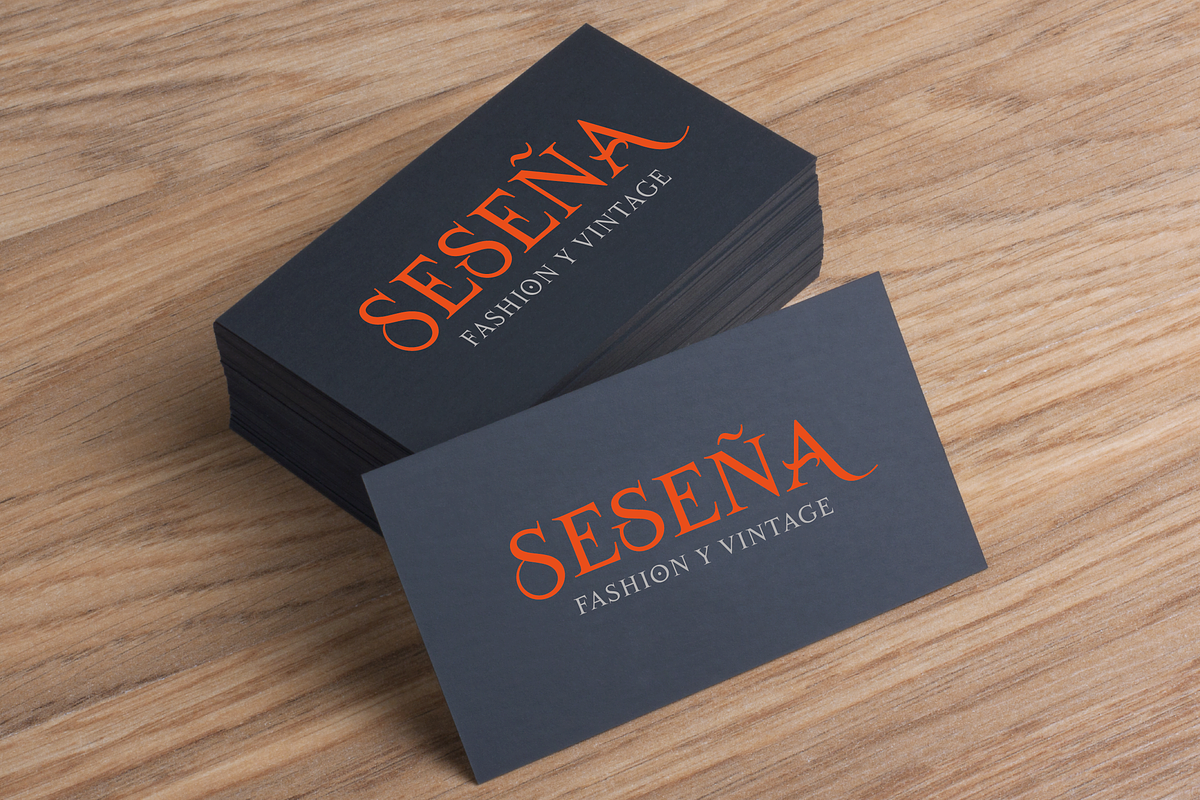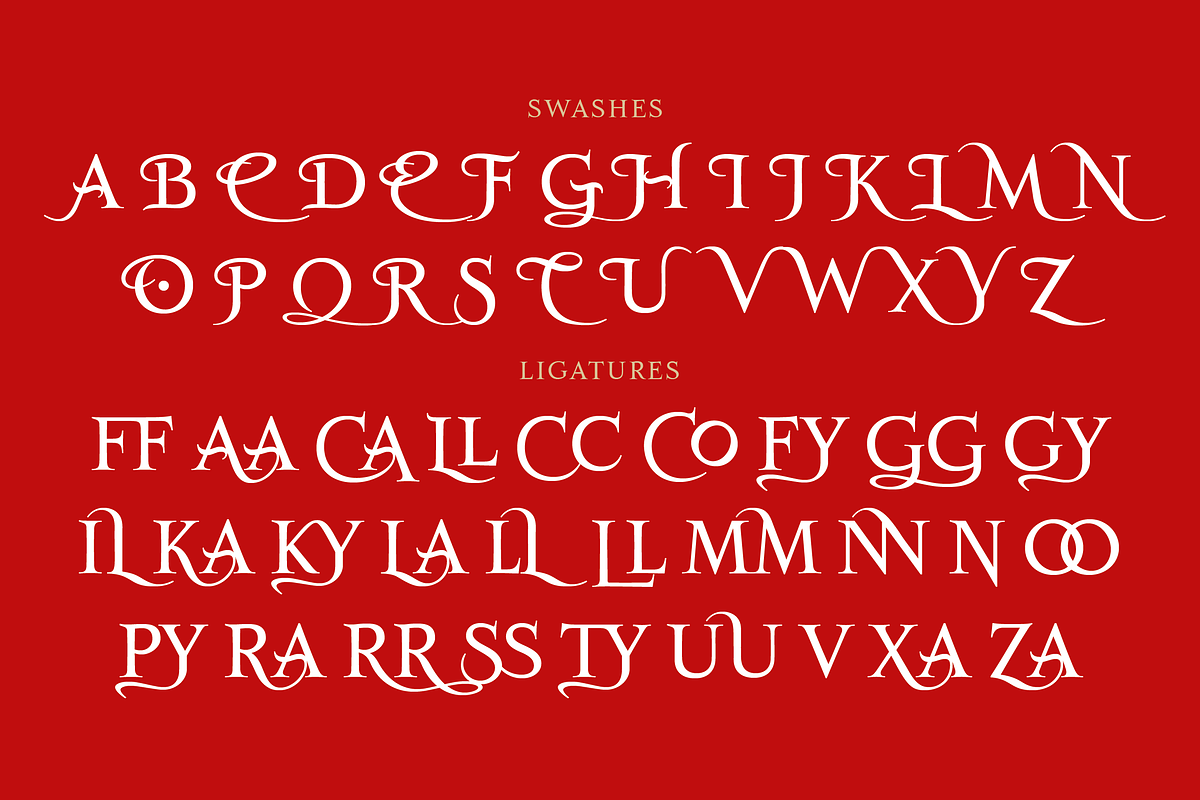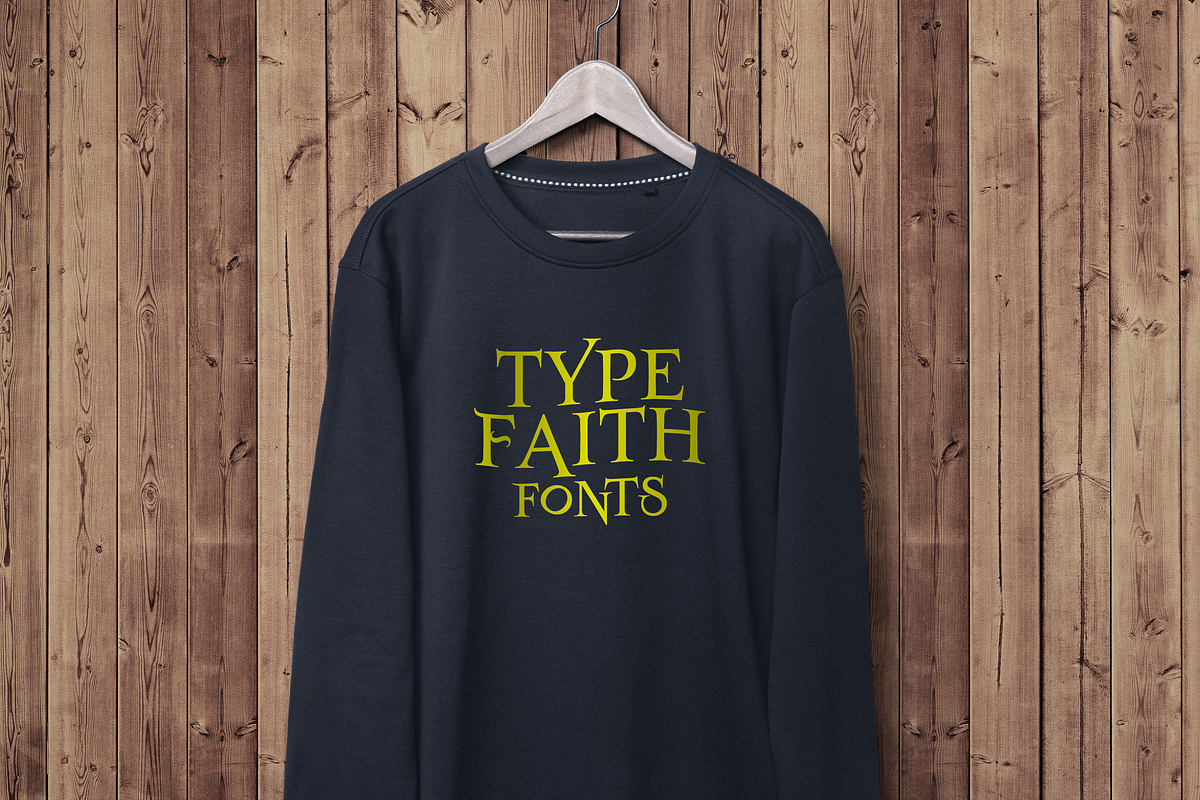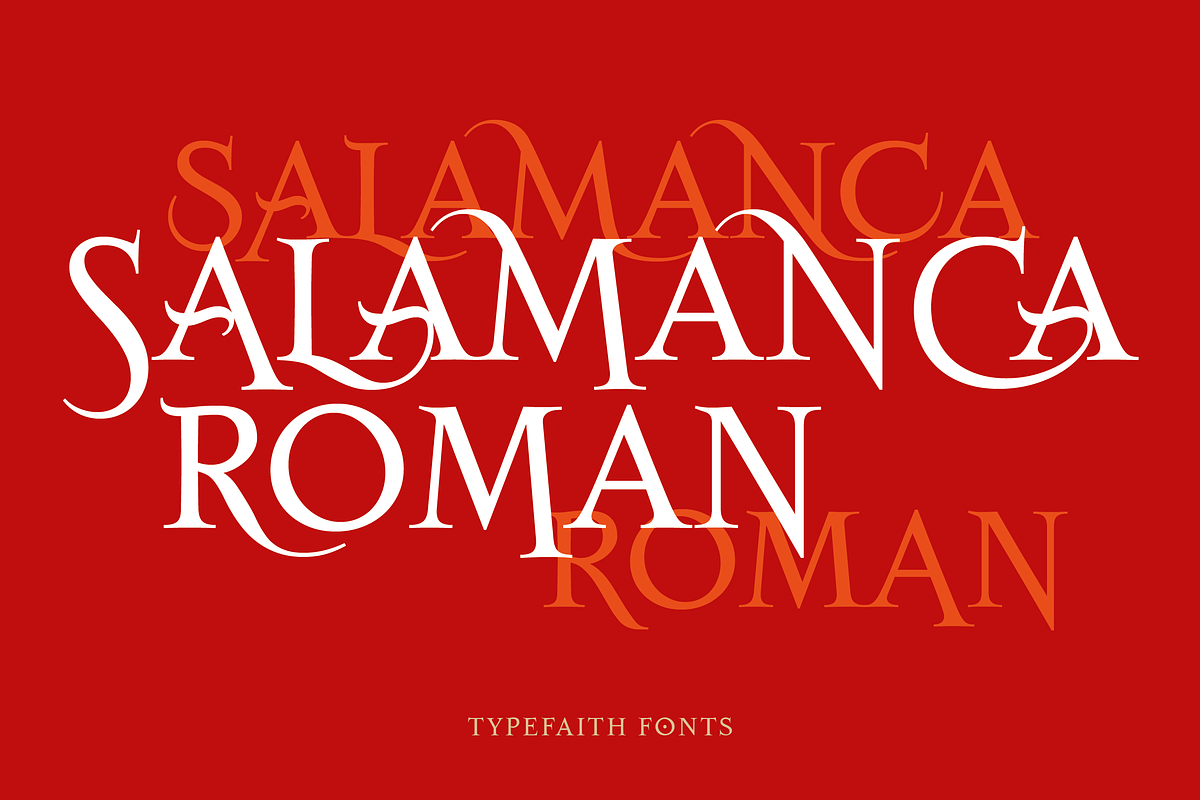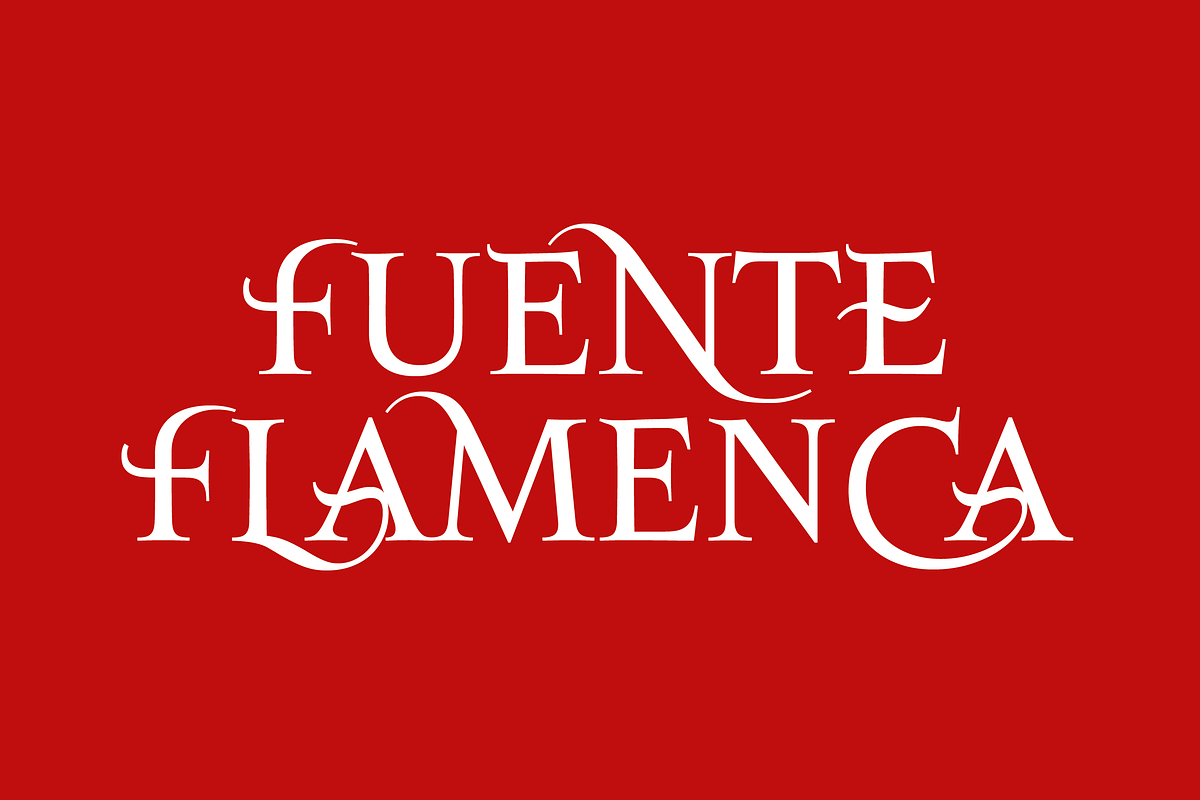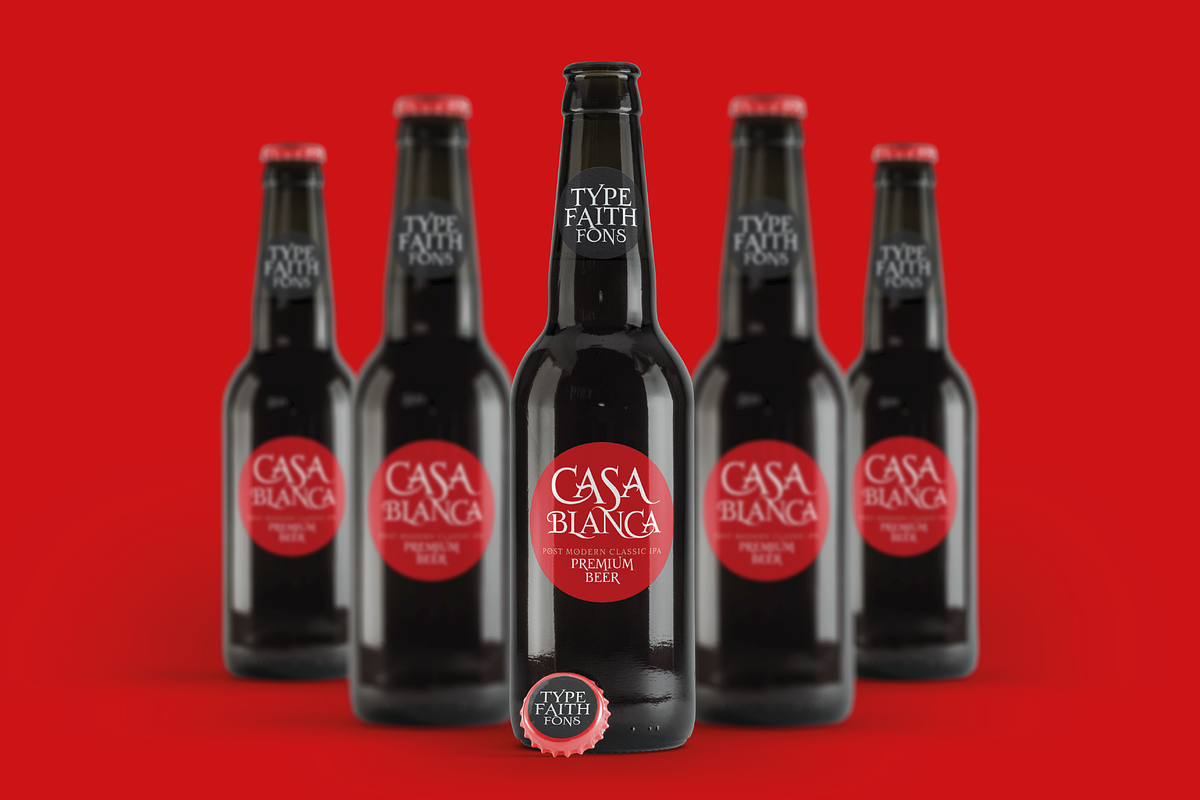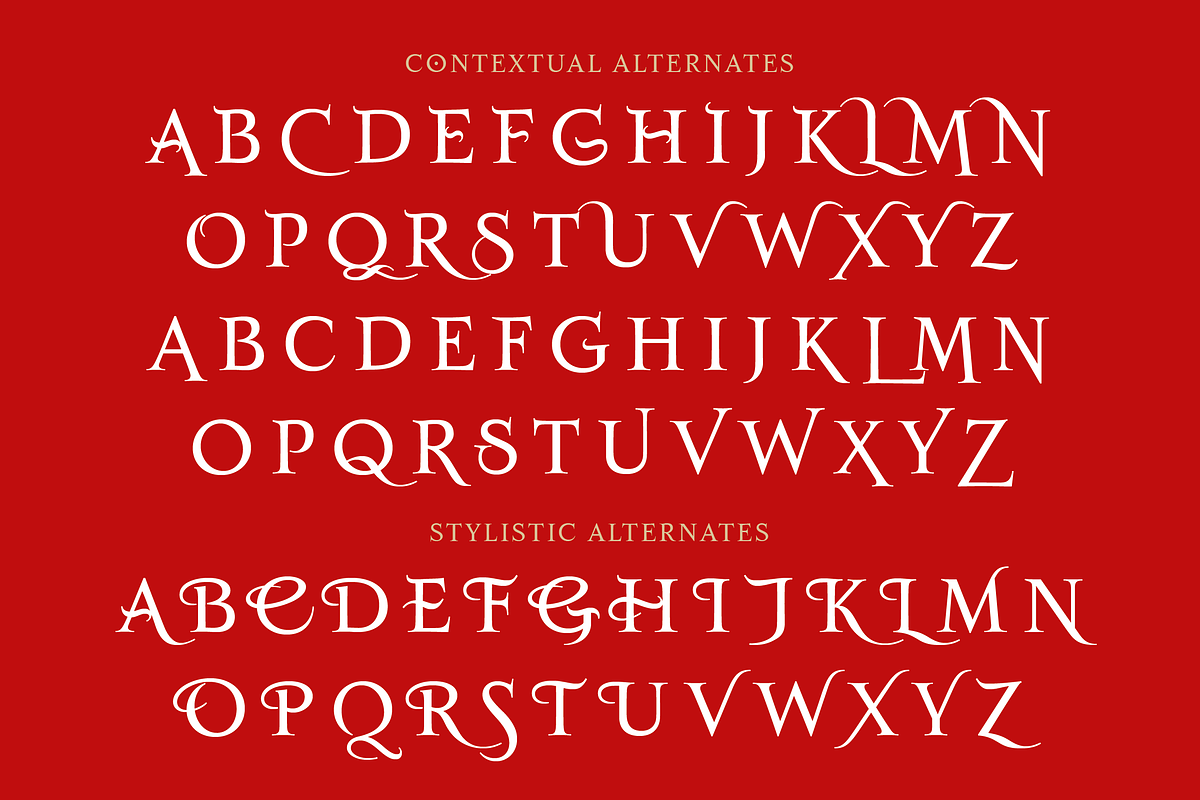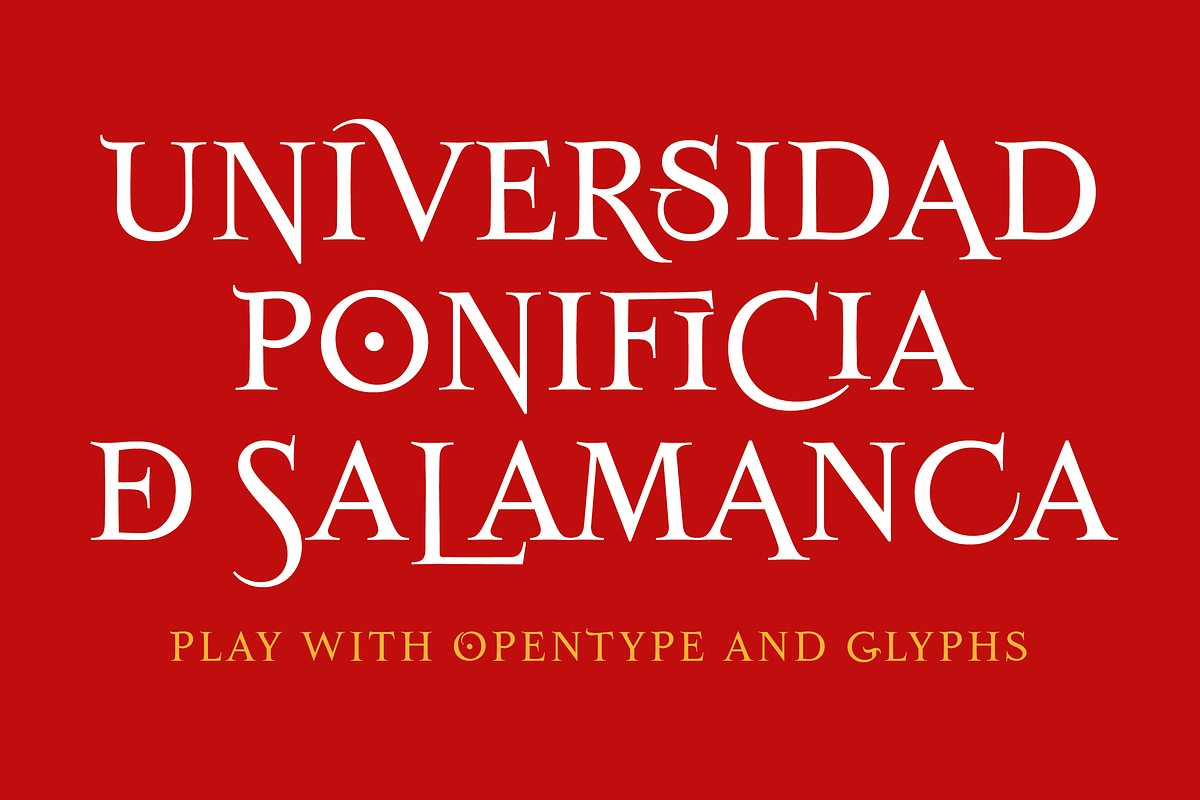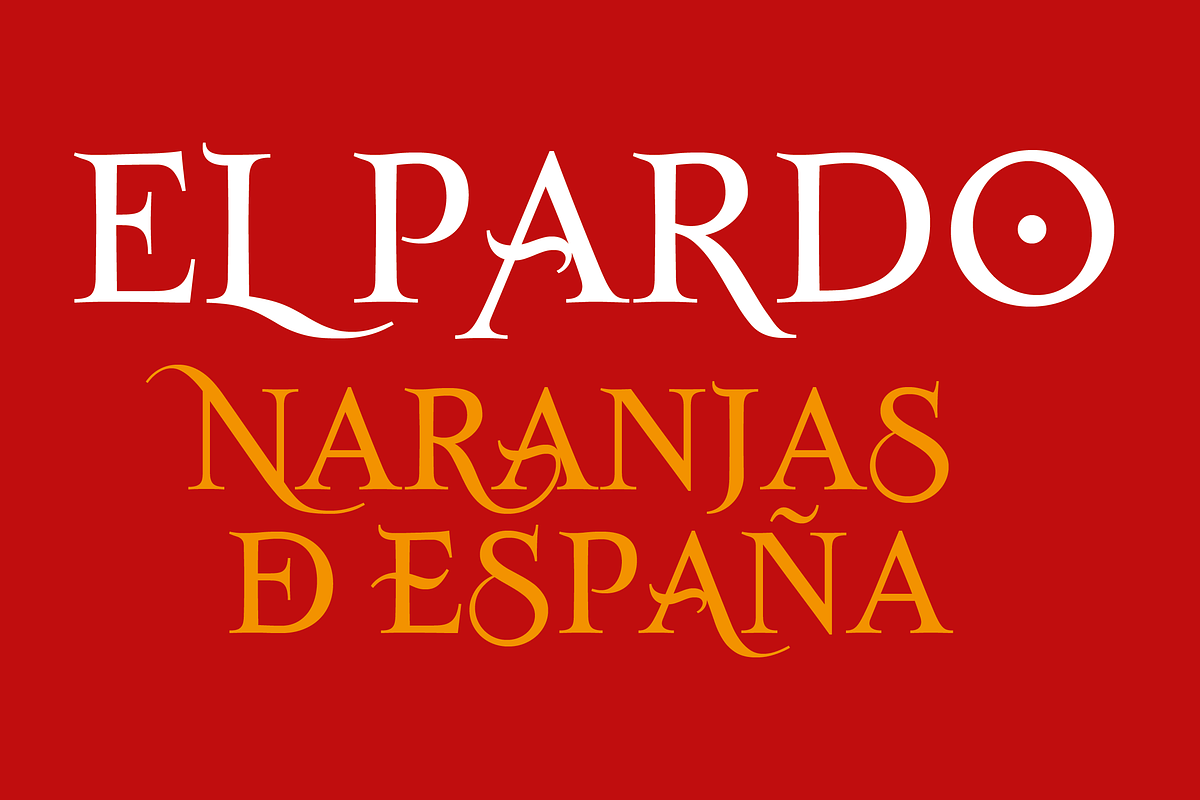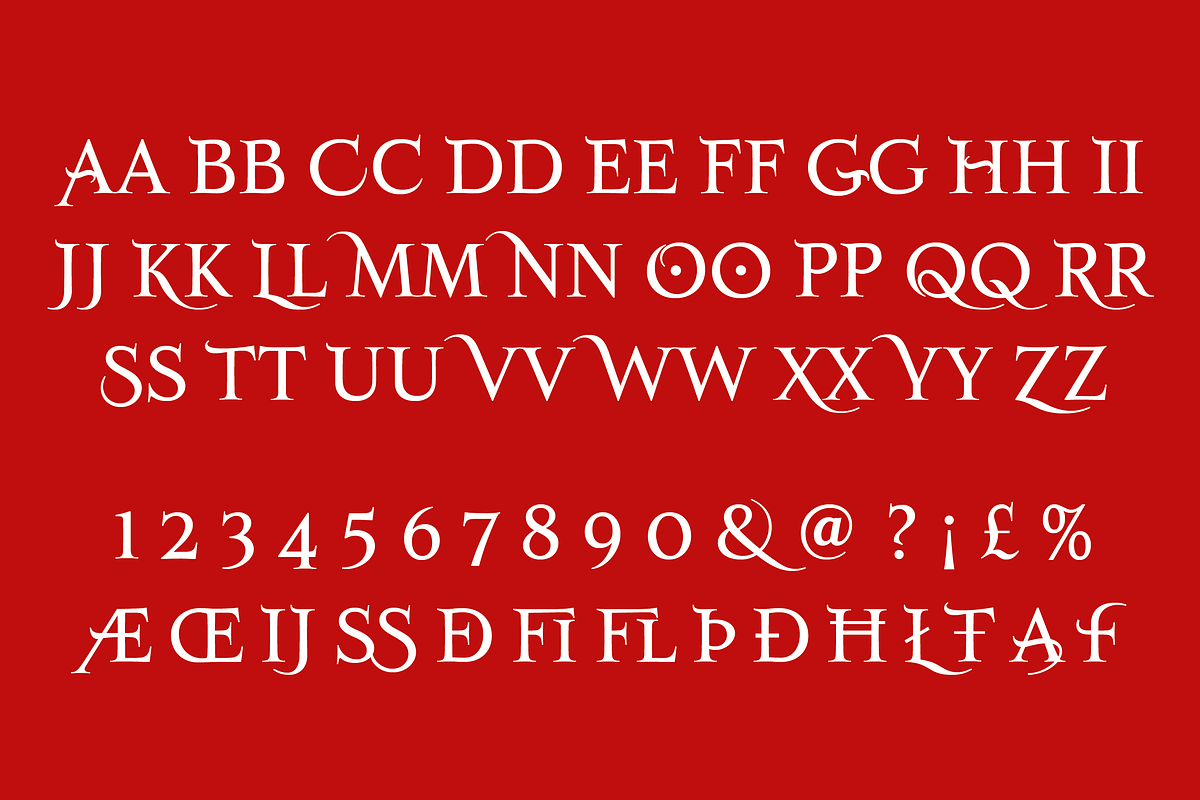
Salamanca TF Roman
In 1996, on a trip through Spain, I came to Salamanca where I was struck by the typography on the walls of official buildings and universities. The letters were painted ornately and irregularly on the walls. That year I made the first version of the Salamanca. I called it Salamanca Official. Later I revisited and improved the font and called it Salamanca TF. Now 27 years later, I have reworked the font again. She has become more regular and balanced in the normal set. In addition, the graceful variations are included in Alternates and Swashes. Beautiful typographical masterpieces can be created with these variations. And so Salamanca Roman was born.
SalamacaTF is a fun to use typeface. With the OpenType options or the glyphs palette you make your own special typo's. The font is based on the wall typography of the city of Salamanca.